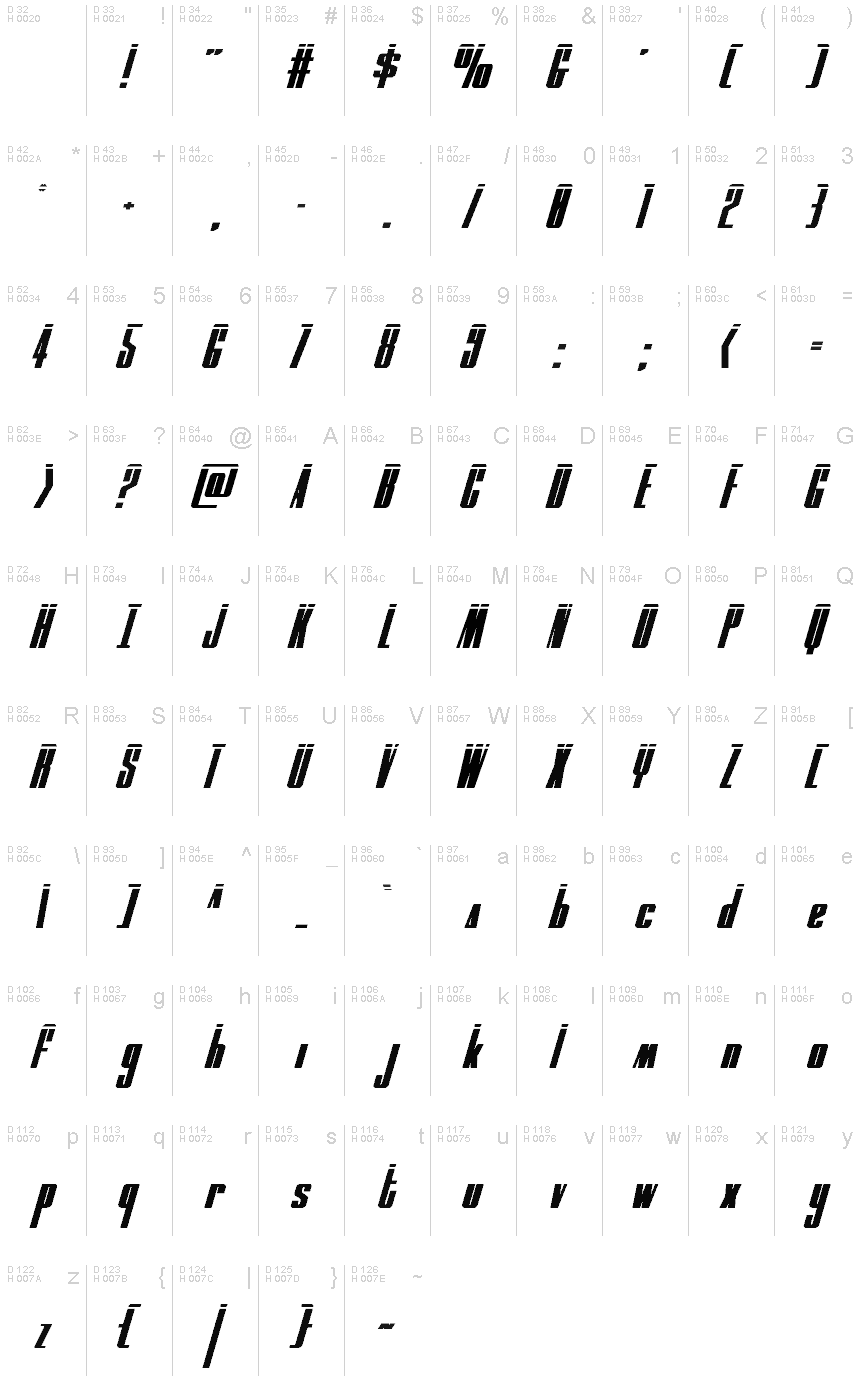
MOON Runner Laser Italic
Moon Runner Laser Italic, crafted by the renowned font designer Daniel Zadorozny of Iconian Fonts, exudes a bold, futuristic flair. This condensed display font boasts a striking, laser-like aesthetic that commands attention. With its sharp, angular letterforms, Moon Runner Laser Italic evokes a sense of technological sophistication and cutting-edge design.
The font's strong, bold weight and distinctive italic slant create a dynamic, forward-moving visual impact. Its condensed width adds an air of sleekness and efficiency, making it an ideal choice for attention-grabbing headlines, logos, and branding applications.
Versatile and adaptable, Moon Runner Laser Italic shines in a variety of design contexts, from sci-fi-inspired digital interfaces to bold, eye-catching print materials. Its unique personality can elevate modern, tech-savvy projects, adding a touch of futuristic elegance and authority.
The font's strong, bold weight and distinctive italic slant create a dynamic, forward-moving visual impact. Its condensed width adds an air of sleekness and efficiency, making it an ideal choice for attention-grabbing headlines, logos, and branding applications.
Versatile and adaptable, Moon Runner Laser Italic shines in a variety of design contexts, from sci-fi-inspired digital interfaces to bold, eye-catching print materials. Its unique personality can elevate modern, tech-savvy projects, adding a touch of futuristic elegance and authority.